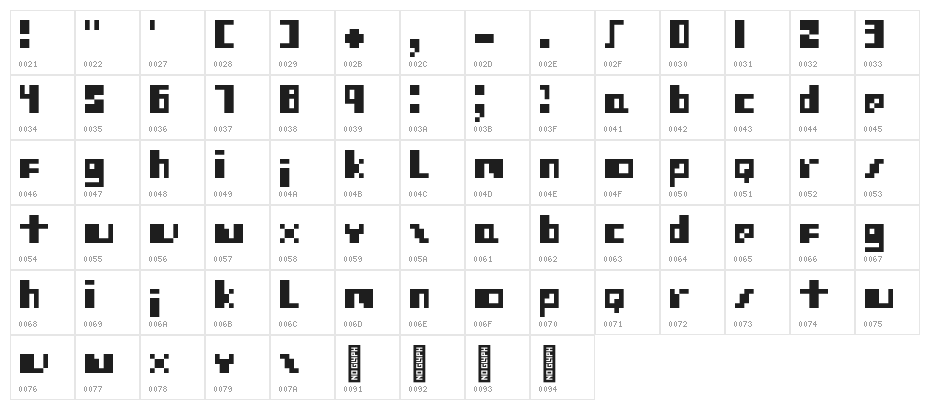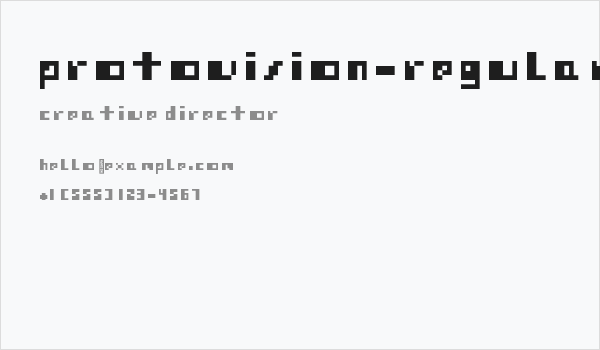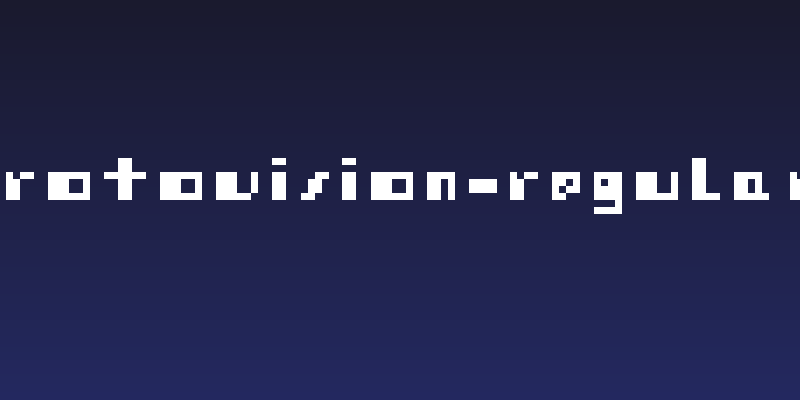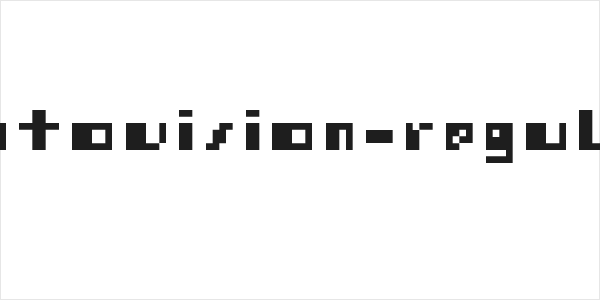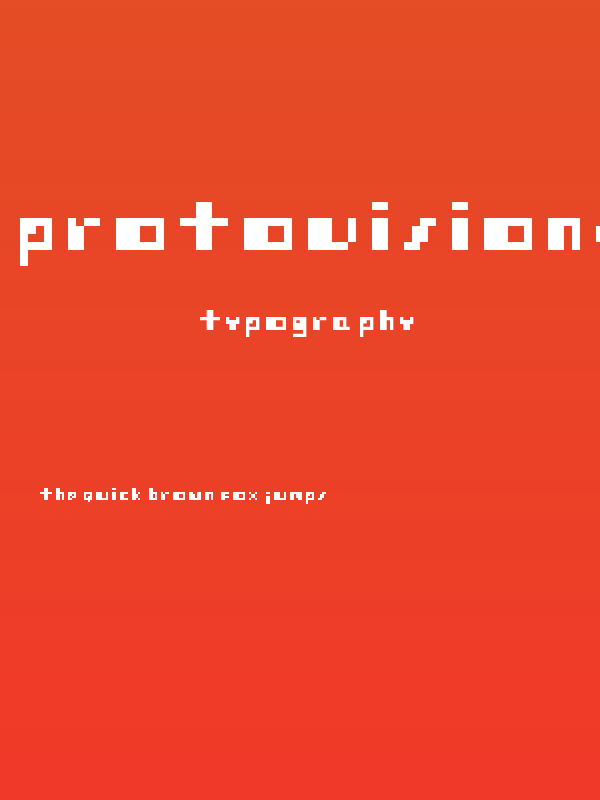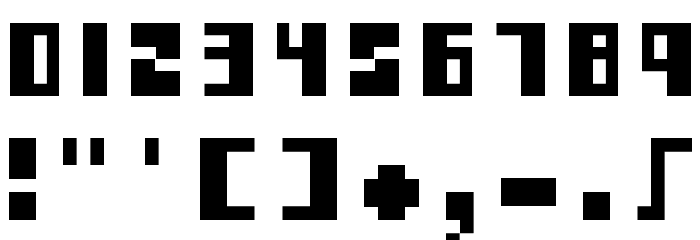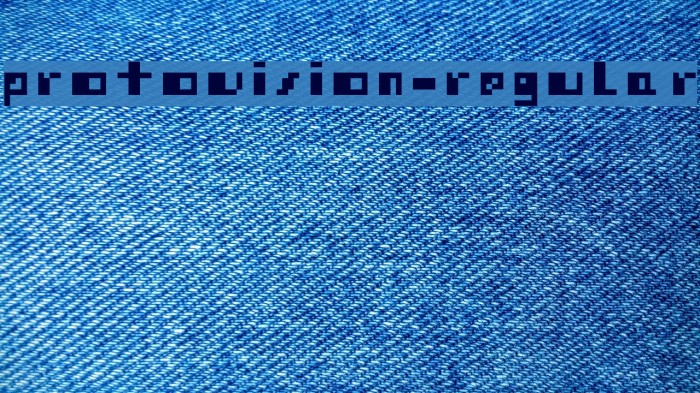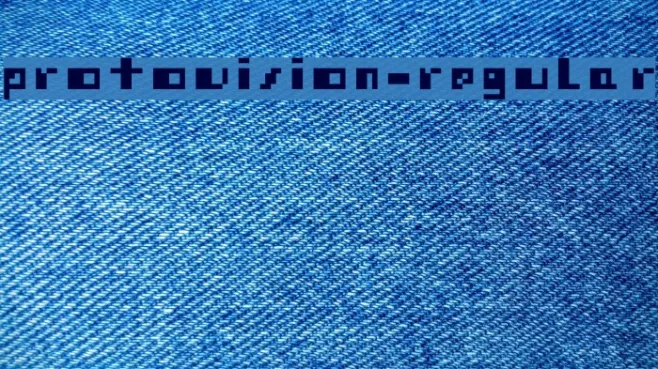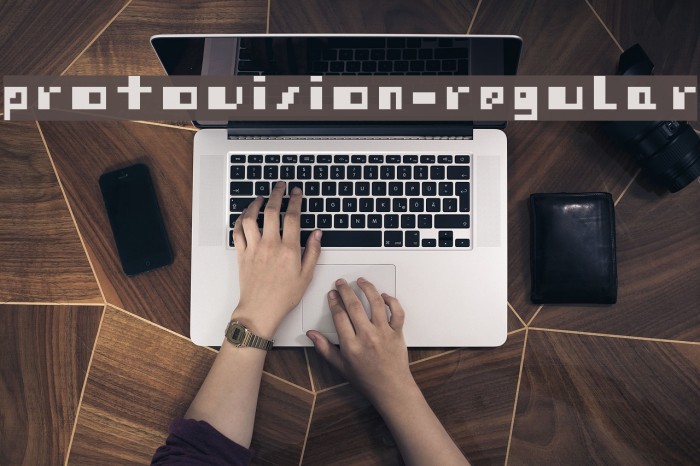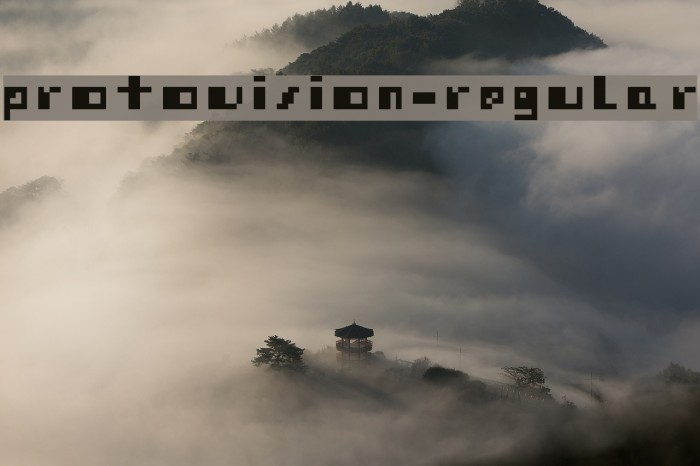
Protovision-Regular Font
This font features a bold, pixelated design reminiscent of early digital and arcade aesthetics. Each character is constructed with a blocky, geometric style that emphasizes sharp angles and uniformity. The uppercase and lowercase letters maintain a consistent height, contributing to a cohesive and structured appearance. Numbers and special characters follow the same pixelated theme, ensuring a harmonious look across all glyphs. The font's retro vibe makes it ideal for projects that aim to evoke nostalgia or a tech-inspired feel.
| Proposed Projects | Ideal for video game designs, retro-themed posters, digital art, and tech-related branding. |